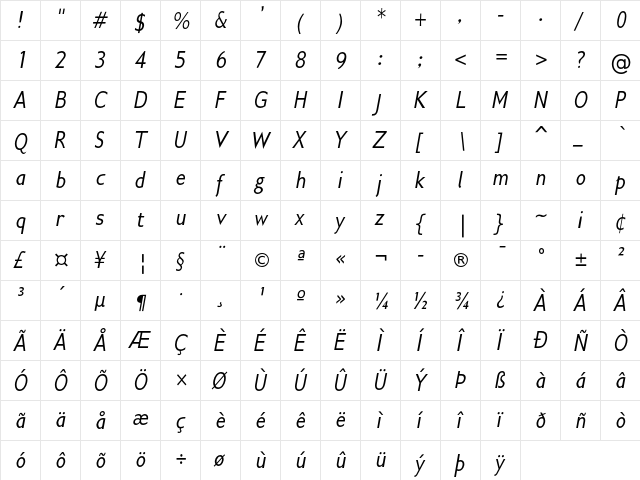
Gillius ADF No2 Cond Italic
| Foundry | Arkandis Digital Foundry. |
| Designer | Hirwen HARENDAL |
Design Context for Gillius ADF No2 Cond Typeface
Gillius ADF No2 Cond offers clean, dependable letterforms without strong stylistic allegiance, making it a practical choice for designers who need flexibility. The slanted form adds forward momentum and visual energy. Its narrow stance lets it pack a punch even in space-constrained designs.
Pro Tip: Try Gillius ADF No2 Cond for annotation and caption copy alongside an upright companion — the contrast in angle creates a dynamic but ordered typographic system.